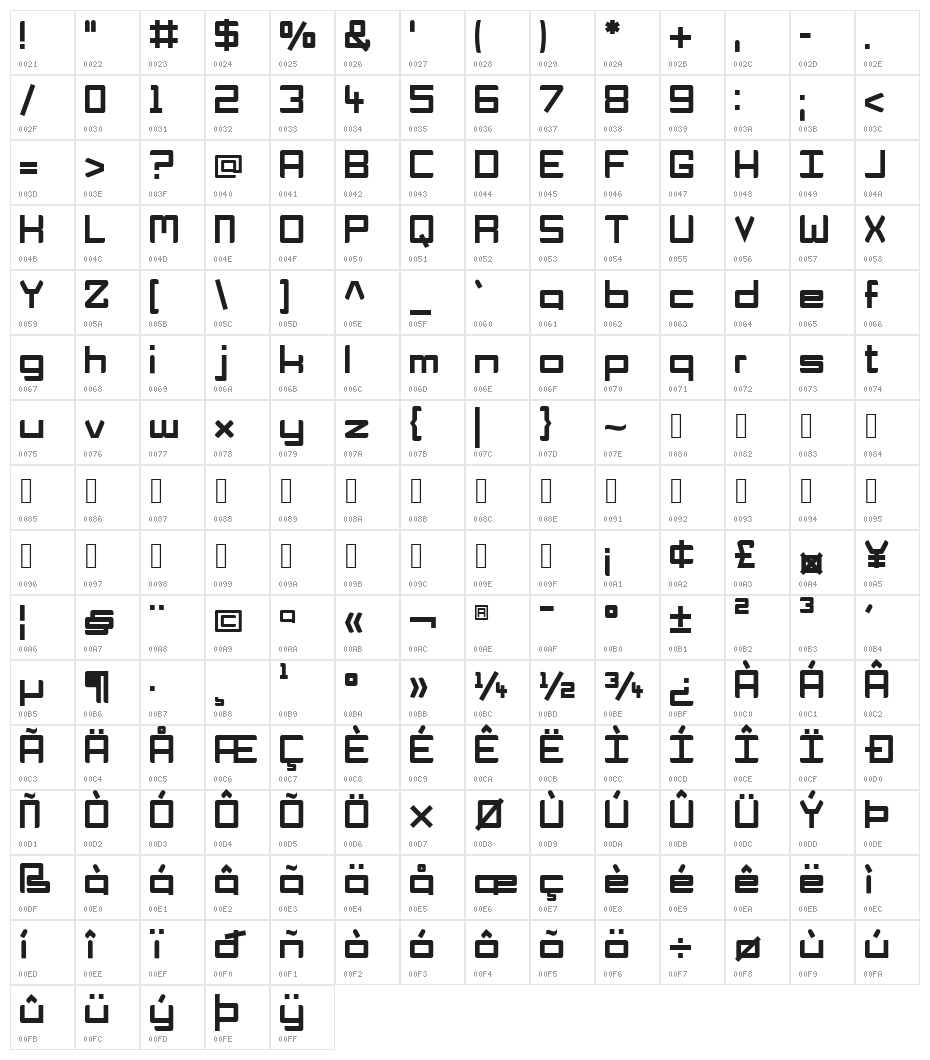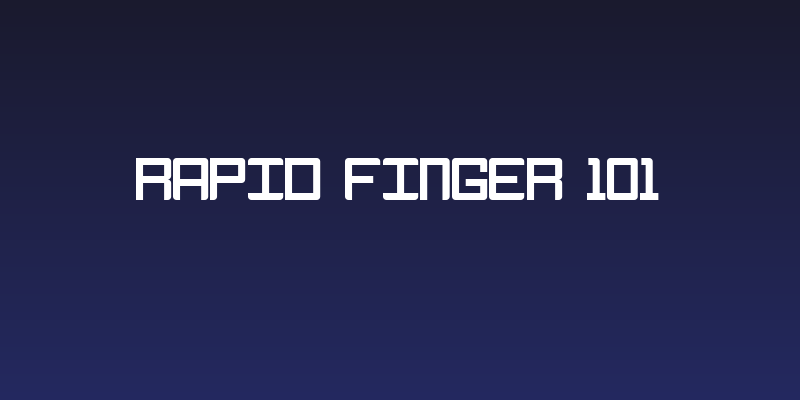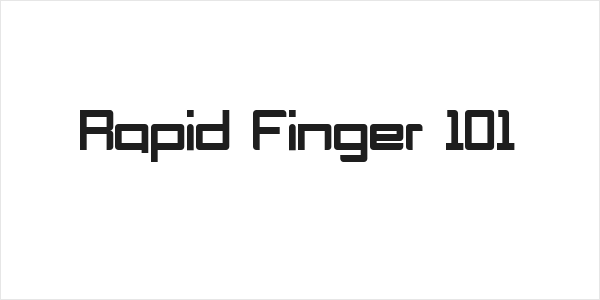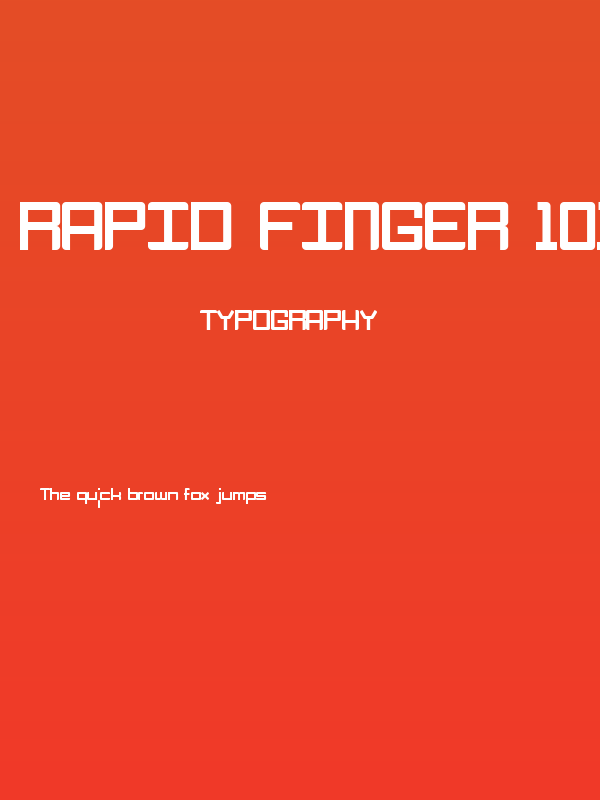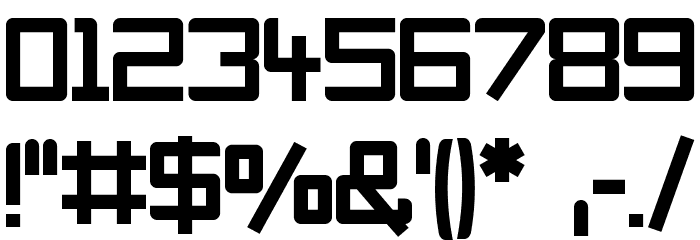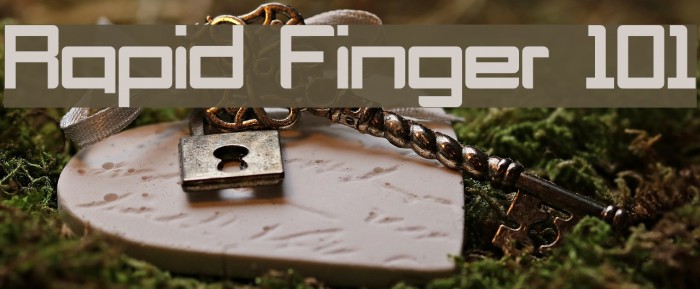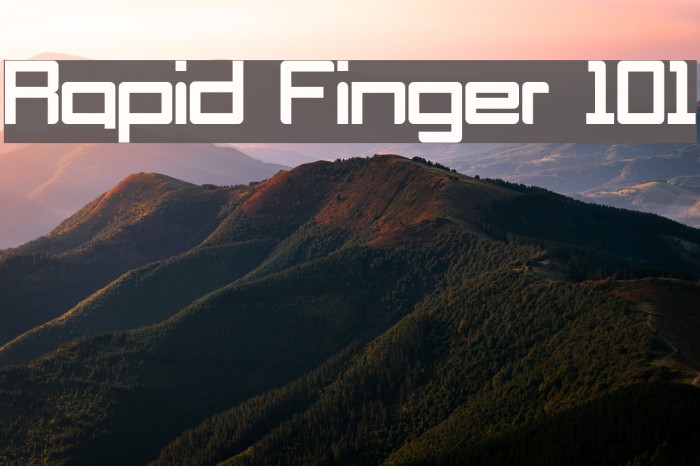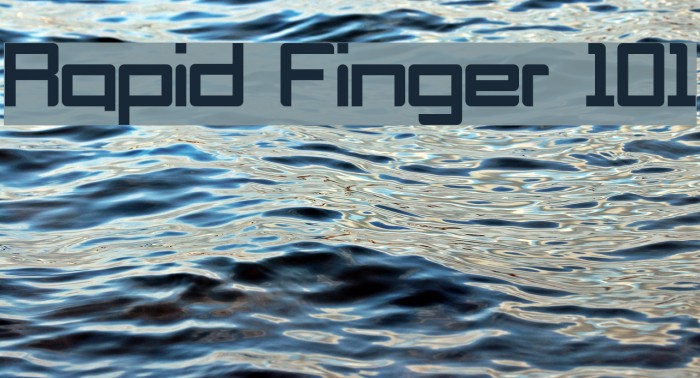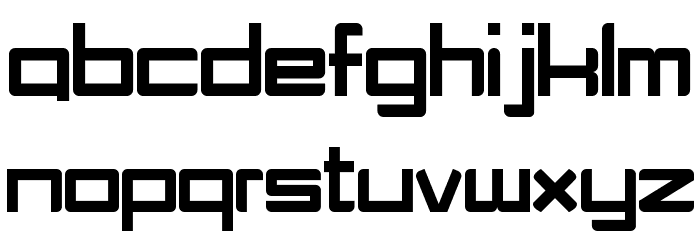
Rapid Finger 101 Font
Rapid Finger 101 Description
This font features a bold, geometric design with a modern and futuristic aesthetic. The characters are constructed with uniform stroke widths, giving it a monospaced appearance. The uppercase and lowercase letters maintain a consistent height, contributing to a clean and organized look. The font includes a full set of numerals and a variety of special characters, making it versatile for different applications. Its distinct style is characterized by sharp angles and a blocky structure, which enhances readability while adding a unique flair.